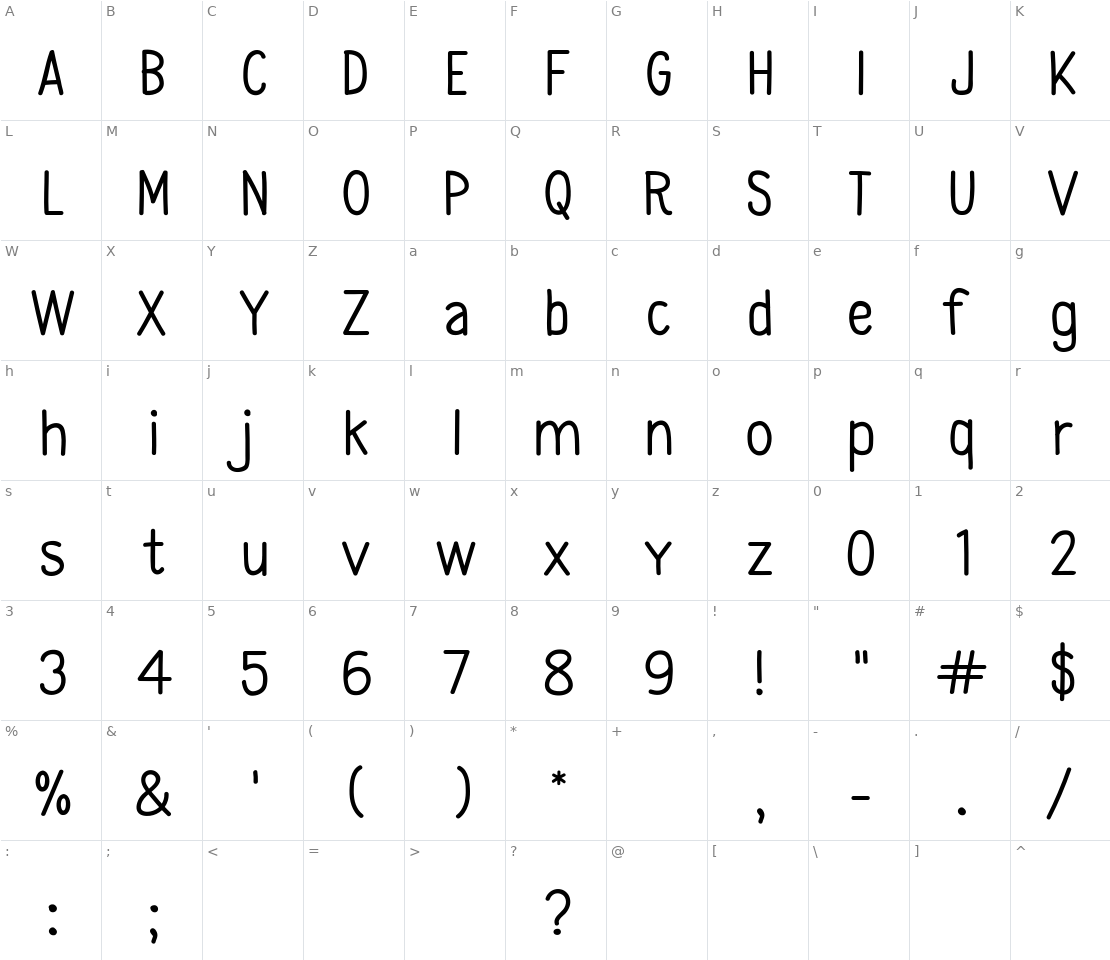
CF Second Son
CF Second Son is a thin, condensed handwritten face from Cloutierfontes that feels like neat but relaxed ballpoint pen writing. The narrow letterforms keep things compact and surprisingly clean for a handwritten style, staying legible even at smaller sizes. It works naturally for personal projects, informal branding, or body text where you want a lightweight, friendly tone without the messiness that often comes with script fonts.